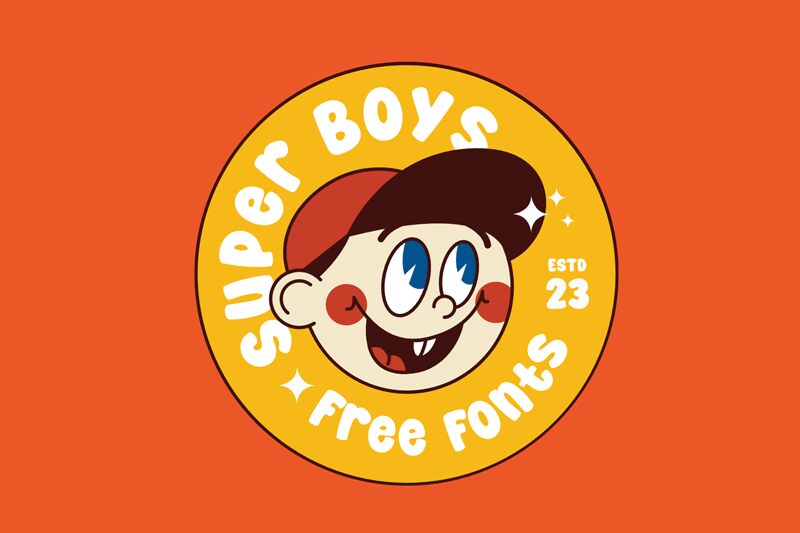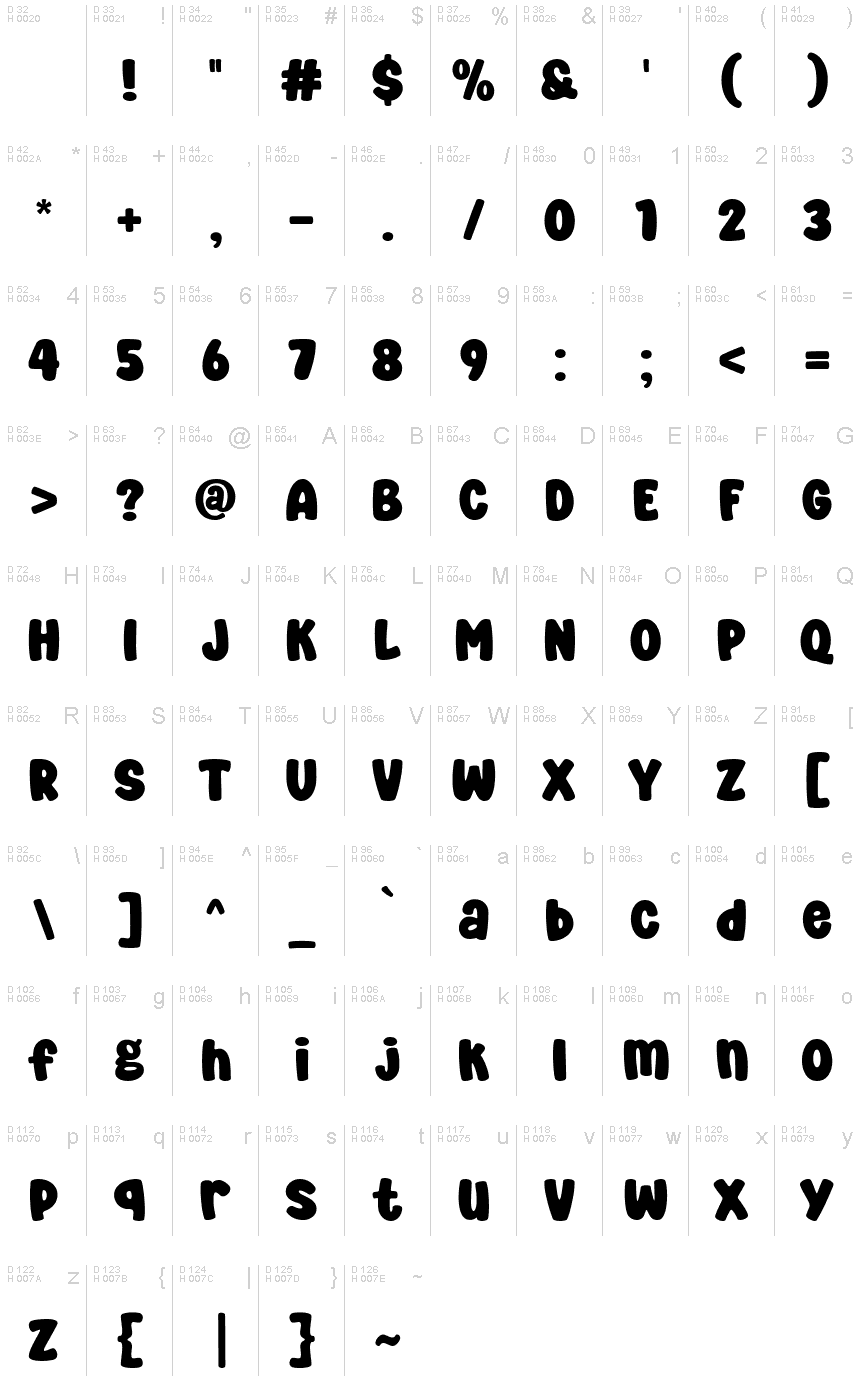
Super Boys
Super Boys, designed by fsuarez913, is a dynamic display font that brings a playful touch to any project.
With its extra-bold weight and cartoon-style design, this font is perfect for children's book covers, animated movie posters, and video game titles. Its lively and vibrant appearance captures attention and adds a touch of fun to branding materials for toy companies or animation studios. Super Boys is also an excellent choice for creating eye-catching signage for theme parks or amusement centers.
Let your imagination run wild with this energetic typeface!